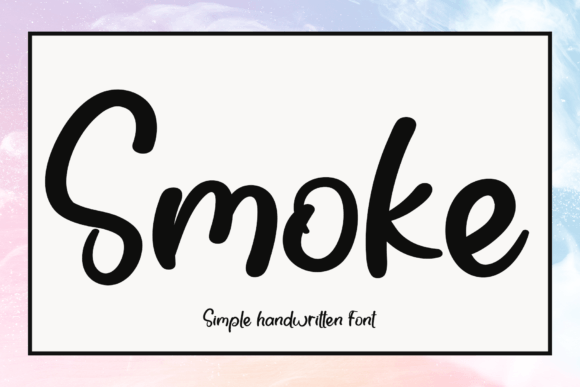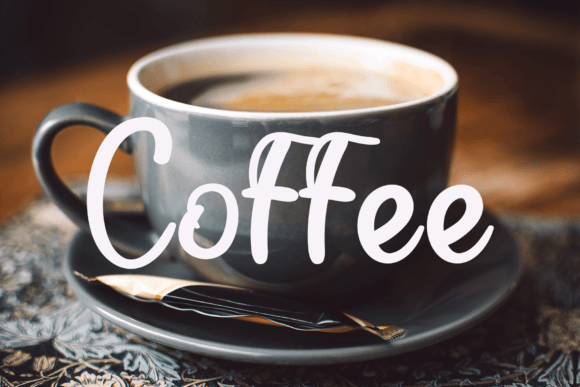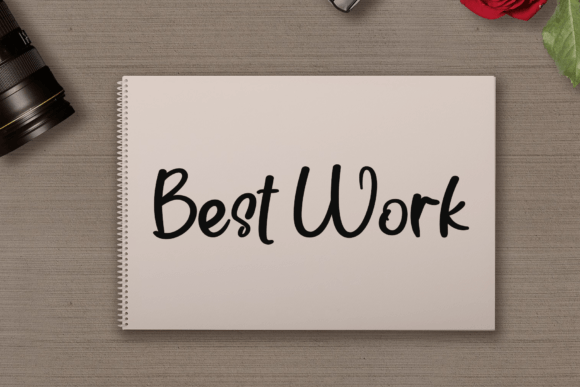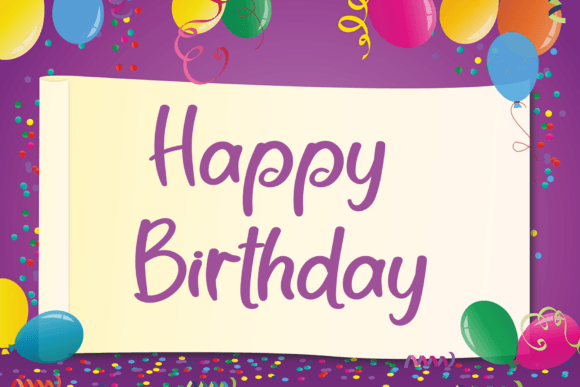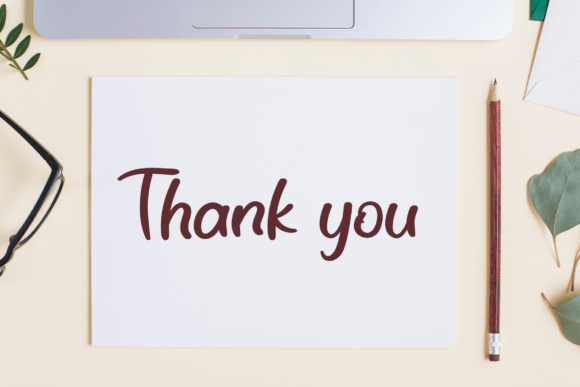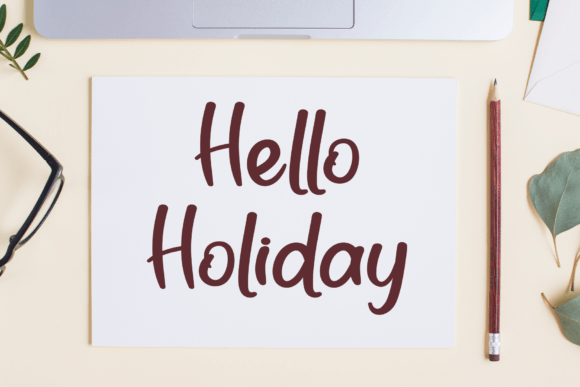
Smoke Font
Smoke Font : A Trendy Handwritten Font for Contemporary Elegance
Introducing Smoke, a stylish handwritten font that effortlessly combines modernity with timeless elegance. This versatile typeface is perfect for a variety of design projects, allowing you to create stunning visuals that resonate with sophistication.
Key Features of Smoke Font
• Trendy Handwritten Style: Adds a contemporary touch to your designs
• Versatile Application: Ideal for branding, invitations, posters, and more
Perfect for Multiple Design Projects
Smoke’s adaptability makes it an excellent choice for:
• Chic branding materials
• Elegant wedding invitations
• Eye-catching posters and flyers
• Engaging social media graphics
• Stylish blog headers and digital content
Enhancing Your Creative Vision
With Smoke, you can infuse your designs with a sense of contemporary elegance. Its unique character adds sophistication to your text, ensuring that your projects stand out in any setting.
Digital and Print Versatility
Whether you’re working on print media or digital platforms, Smoke maintains its charm and readability. Use it for:
• Striking website headers
• Memorable email marketing campaigns
• Distinctive packaging designs
• Unique product labels
Customization Options
Smoke offers a wide range of customization options, allowing you to tailor your text to match your creative vision perfectly. This flexibility empowers you to create designs that reflect your artistic preferences.
Smoke is more than just a font; it’s a design asset that elevates your creative projects with modernity and elegance. Its trendy handwritten style inspires captivating designs that leave a lasting impression on your audience. By incorporating Smoke into your designs, you can create visually appealing and memorable content that engages your audience. Whether you’re a professional designer or someone looking to add a touch of sophistication to personal projects, Smoke offers the perfect blend of charm and functionality. Consider pairing Smoke with clean sans-serif fonts for contrast or complementing it with other script fonts for a dynamic typographic palette. This versatility allows you to create designs that are both stylish and harmonious across various mediums and industries. Embrace the contemporary elegance of Smoke today and watch as it transforms your creative ideas into stunning realities!